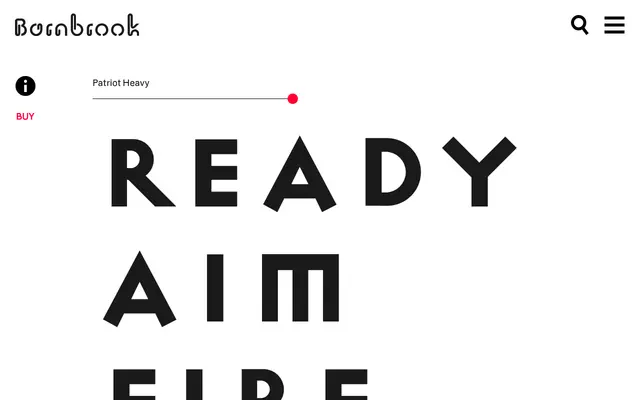
Patriot
A sans-serif companion to Exocet, drawing on early Greek and Roman stone carving to produce a striking lapidary display face with pointed political naming.
Where Exocet adapted ancient lapidary letterforms into a serifed display face, Patriot strips the serifs whilst hewing more closely to the original stone-carved source material. Unique and alternative character forms give it a distinct identity beyond its sibling typeface. The name, borrowed from a surface-to-air missile system and the jingoism it implies, is a deliberate provocation about the capacity of language to carry both peace and violence.
Derived from early Greek and Roman stone carving traditions, Patriot is a display sans without serifs but with the angular, incised quality of lapidary lettering rather than any modernist grotesque lineage.